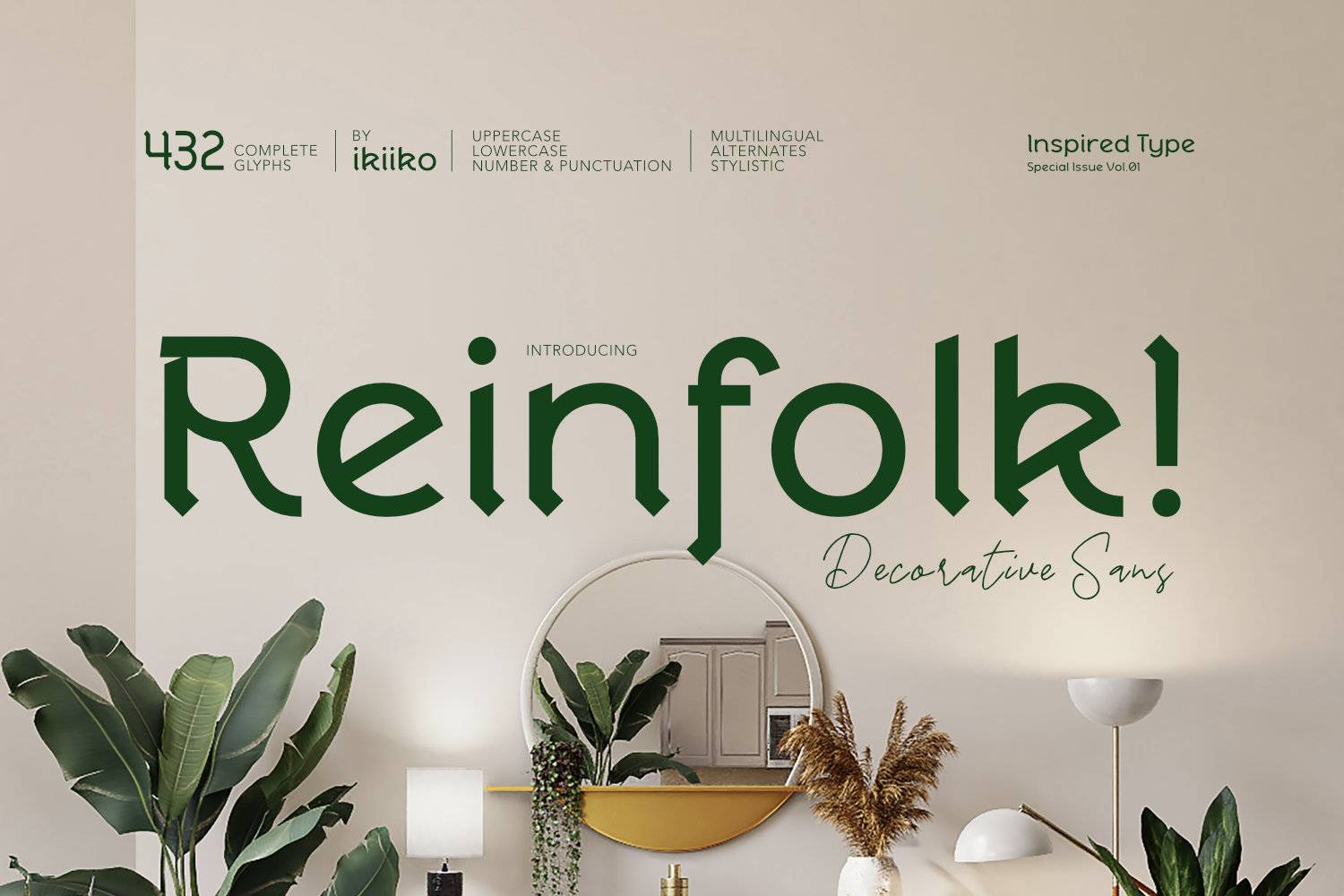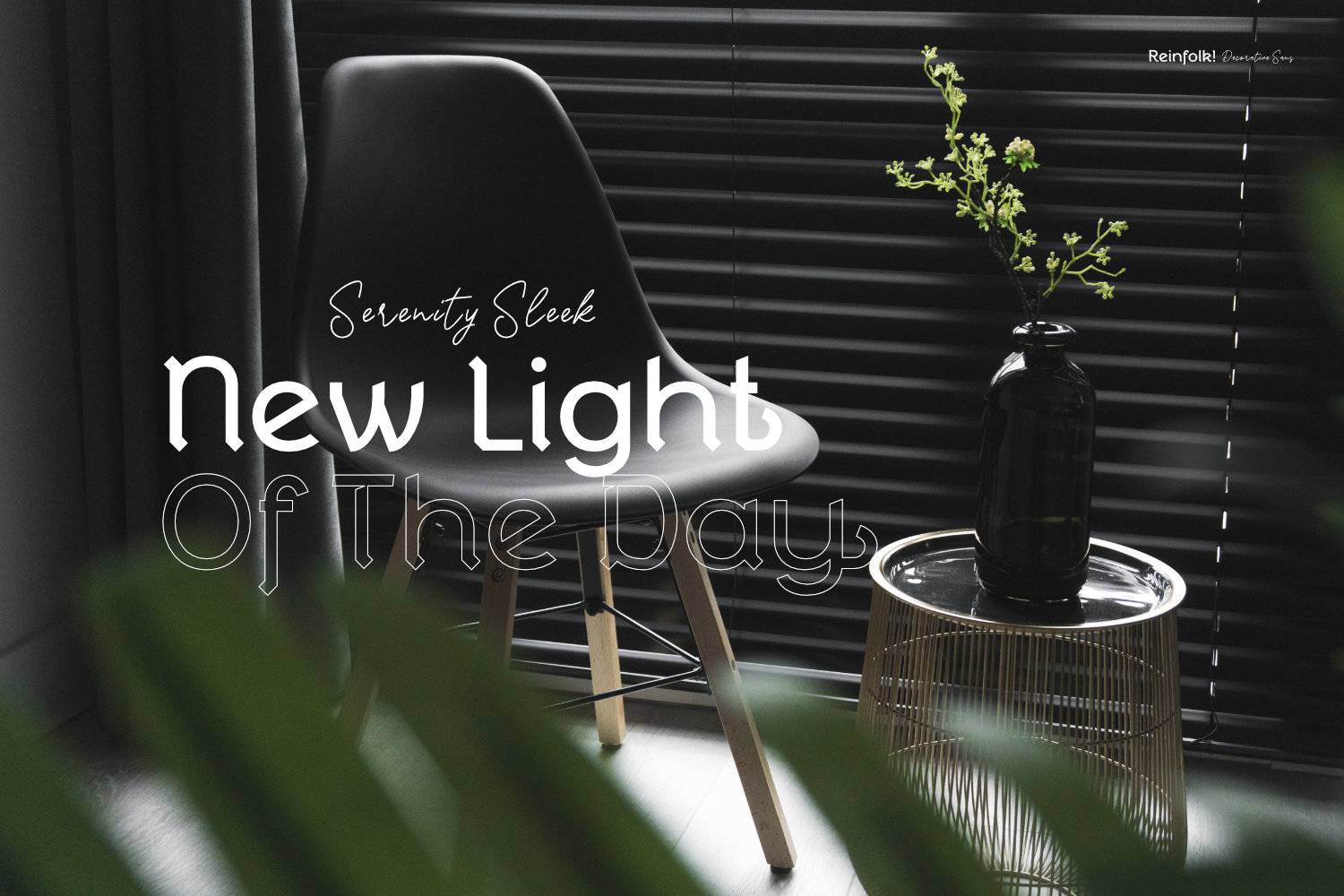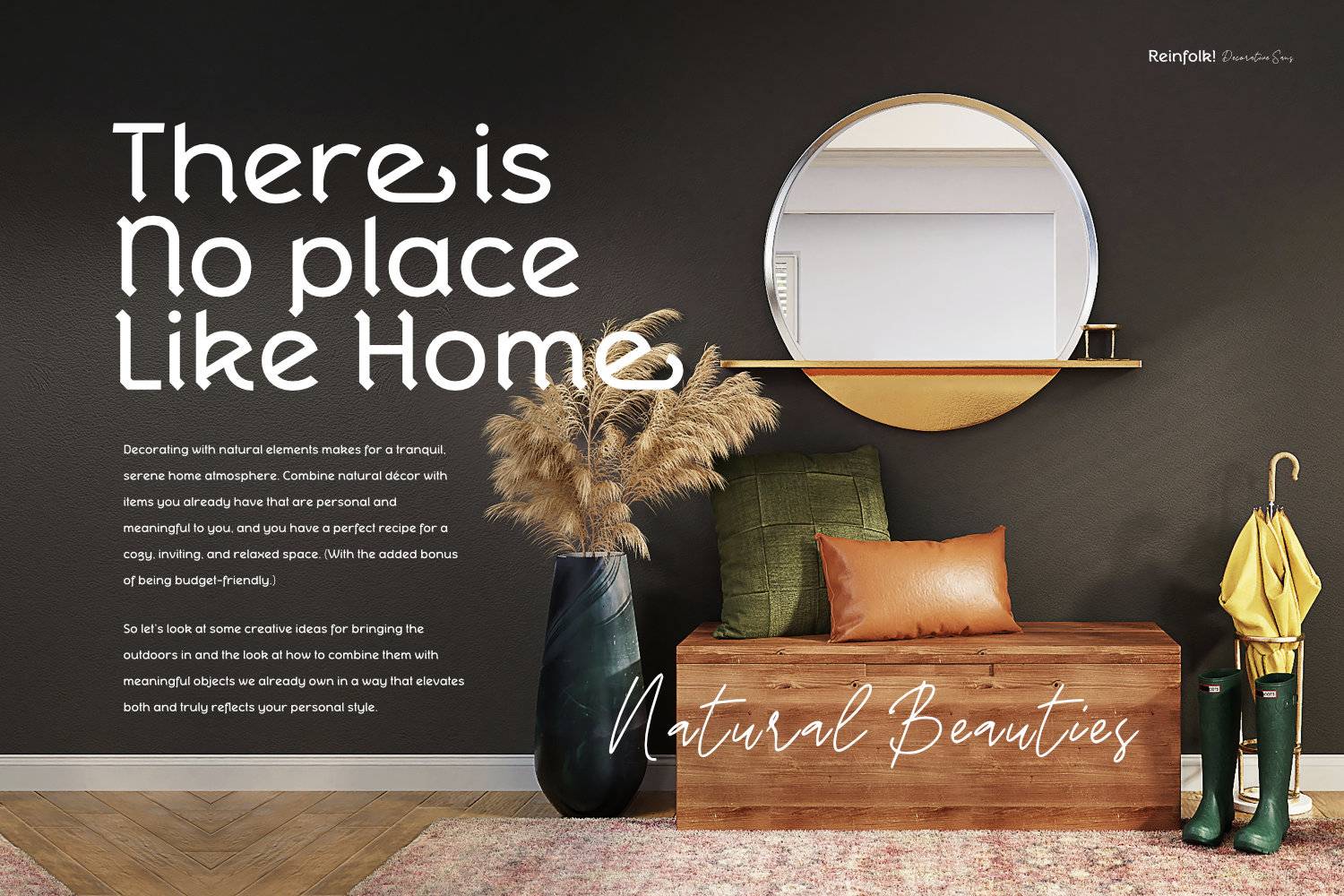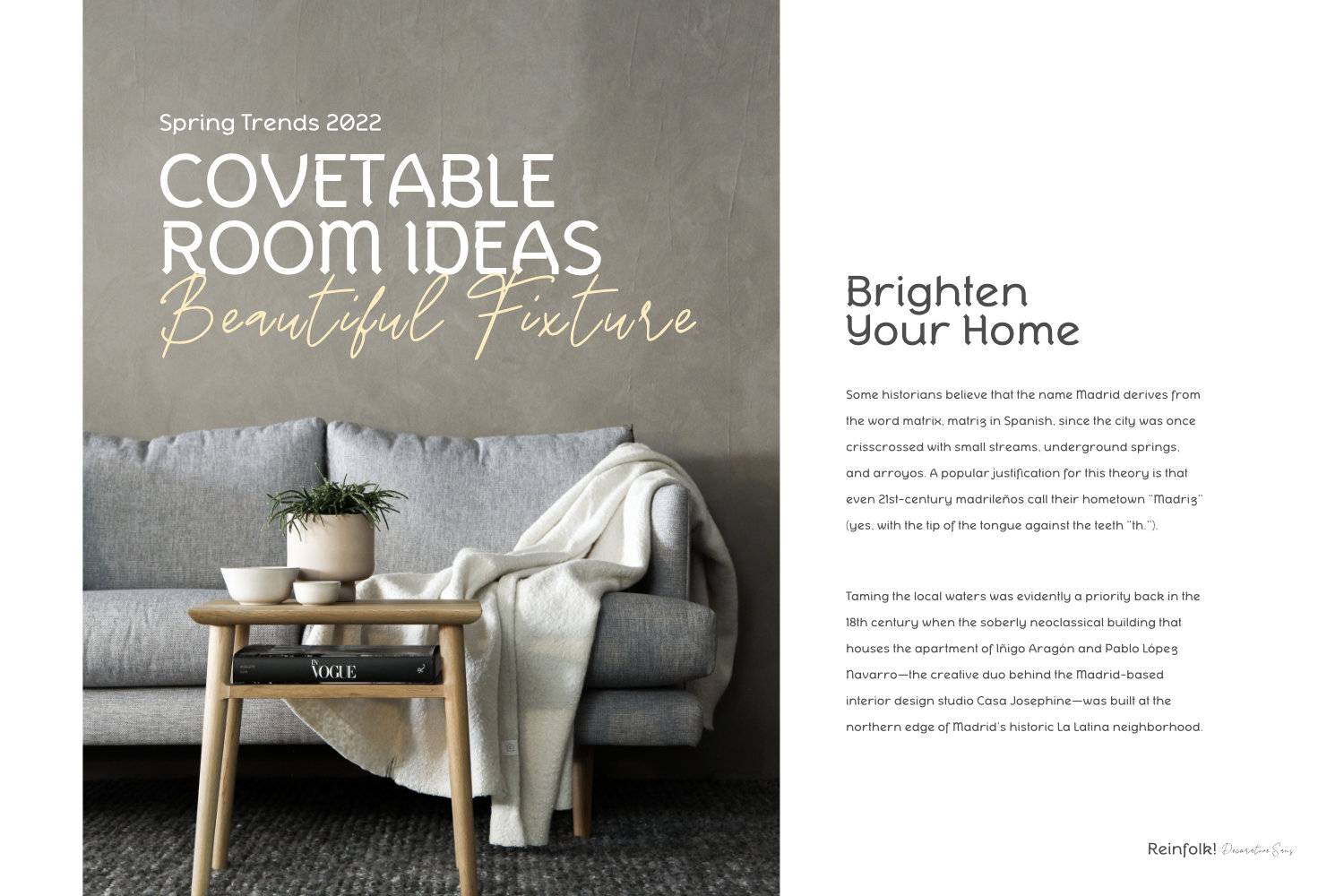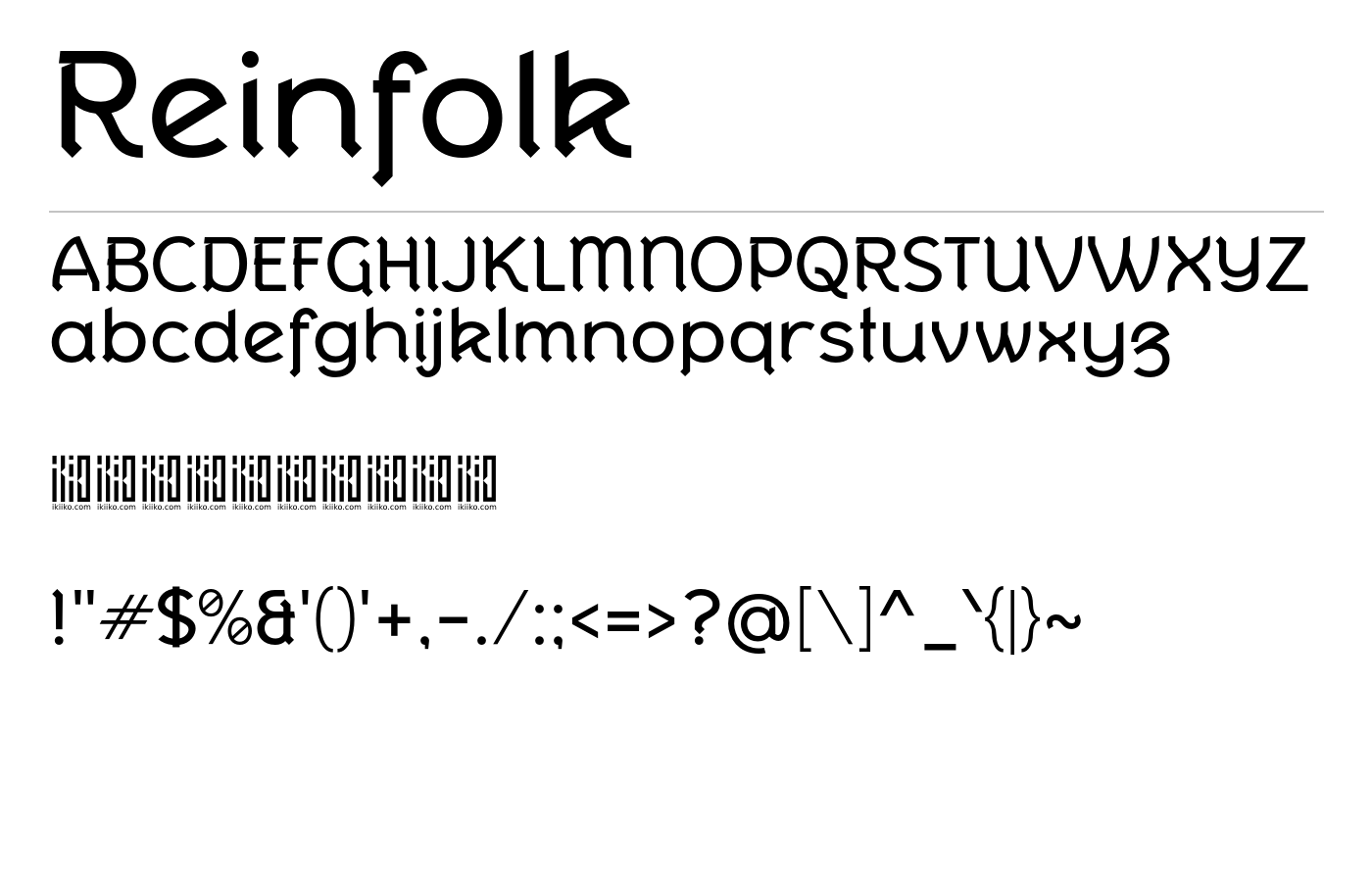
Reinfolk is a modern serif font that combines geometric shapes with elegant, sharp serifs for a unique and stylish appearance. Its medium weight and balanced x-height make it versatile for both headlines and display use, while its distinctive letterforms add a refined, slightly avant-garde character. Ideal for fashion, branding, and editorial projects, Reinfolk brings a sophisticated yet contemporary feel to designs that want to stand out with personality and grace.
Reinfolk Font
About Reinfolk Font
| Font family | Reinfolk Font |
| Designer | Wahyu Eka Prasetya, Andhika Pradana |